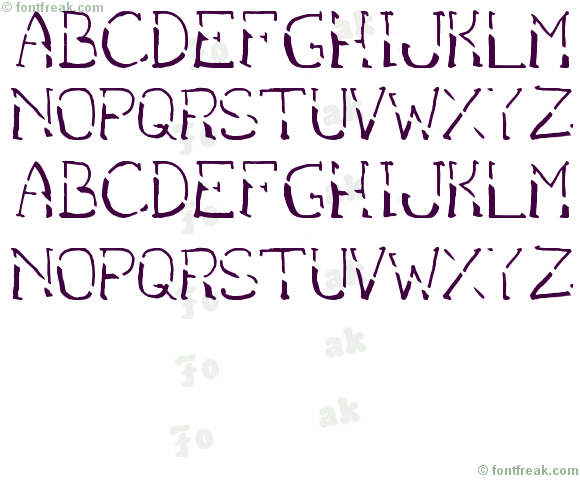
bantum caps
Bantum Caps, designed by Xerographer Fonts, is a unique display typeface that captures attention with its playful and artistic flair. This font is categorized as a decorative typeface, characterized by its bold, distinctive letterforms that exhibit a hand-crafted quality. The stroke weight varies, creating an engaging contrast that adds visual interest, while the uneven spacing between letters enhances its quirky charm. Each character features irregularities that give the font a lively personality, making it ideal for creative projects.
The Bantum Caps font is versatile, making it suitable for a range of applications. It shines in wedding invitations, where its whimsical style can convey a sense of joy and celebration. Additionally, it can elevate movie posters, providing an eye-catching focal point that draws viewers in. For restaurant menus, its unique character can add a touch of personality, making the dining experience feel more inviting. Graphic designers will also appreciate its potential for branding projects, where a distinctive font can help a business stand out in a crowded market.
What sets Bantum Caps apart is its ability to combine art and functionality seamlessly. It’s not just a typeface; it’s a statement. Its distinctive characteristics ensure that any project utilizing this font will not go unnoticed. With the Bantum Caps font free download available, you can easily incorporate this exceptional typeface into your next creative endeavor.